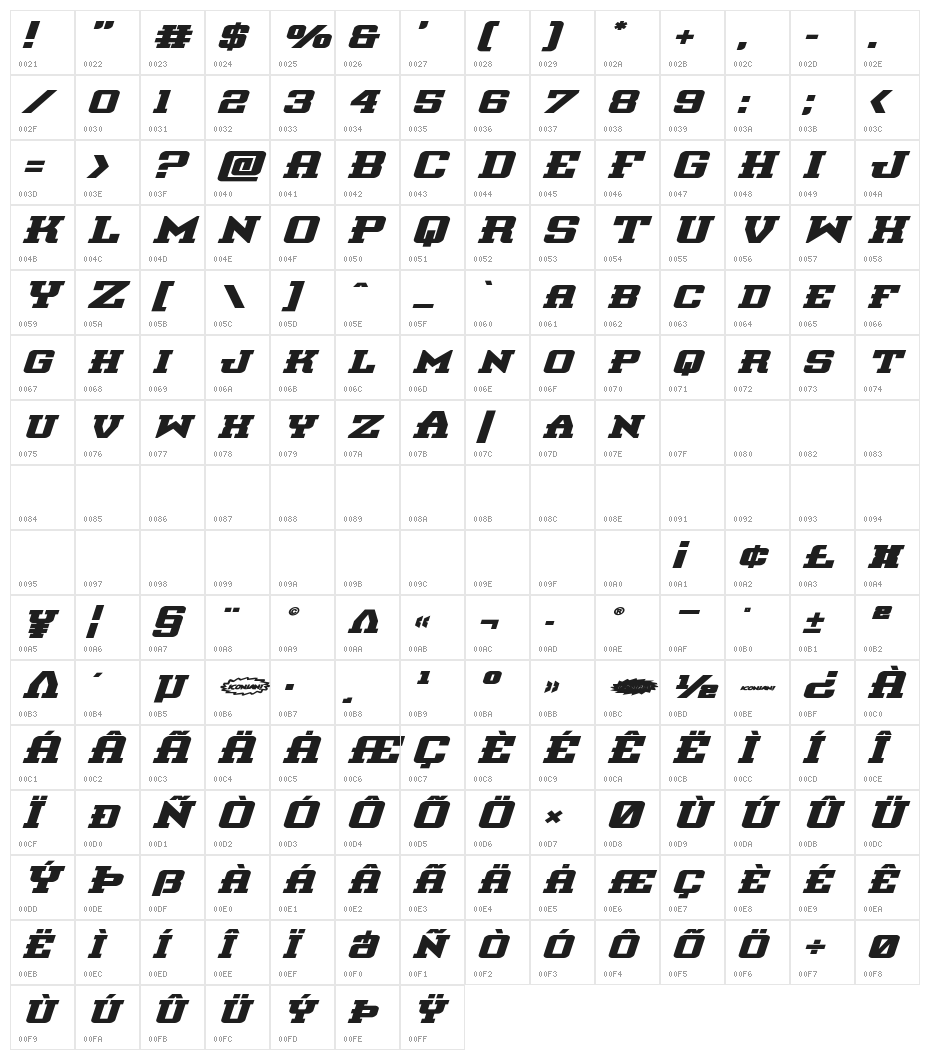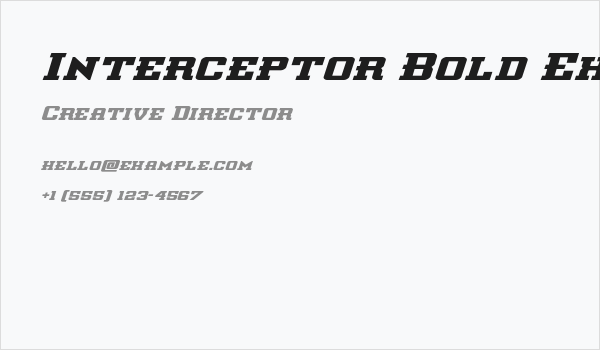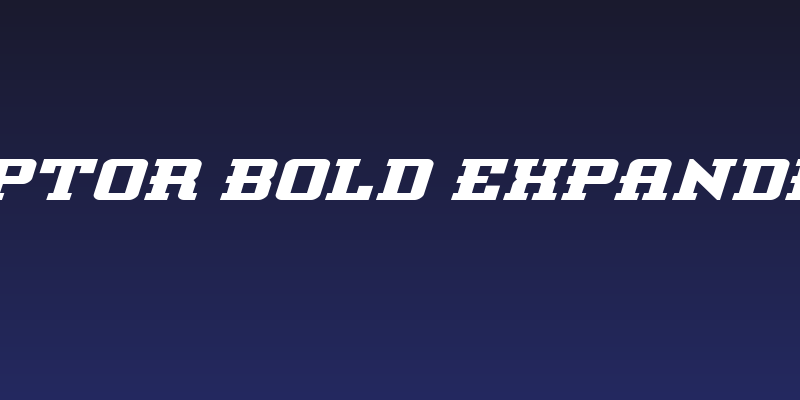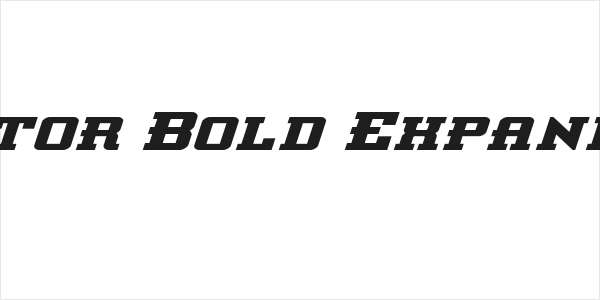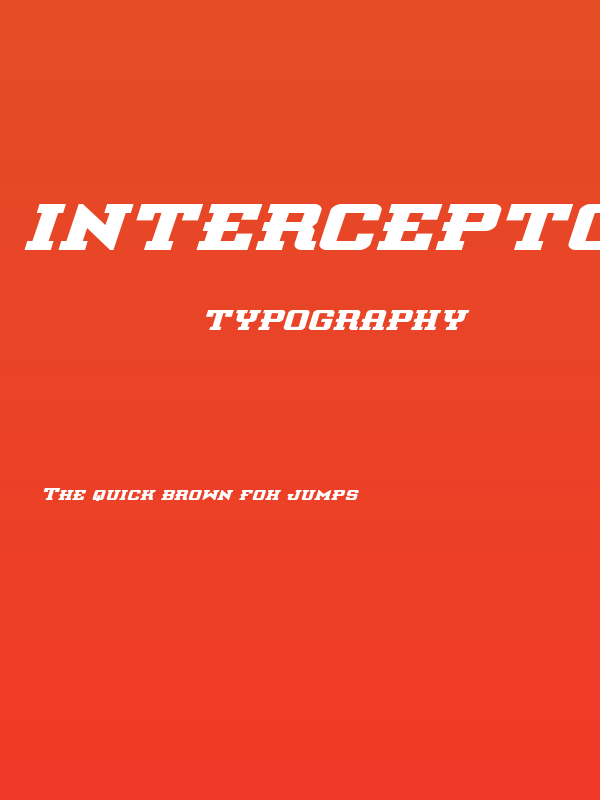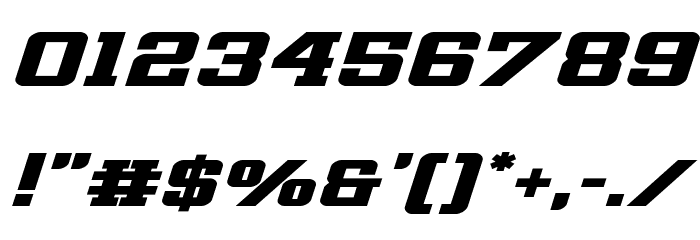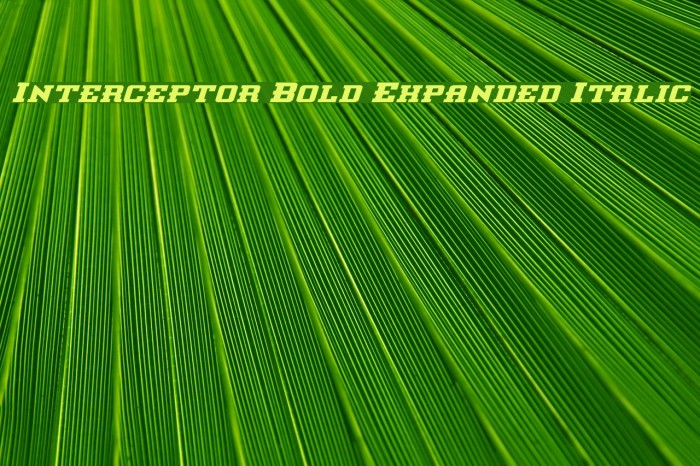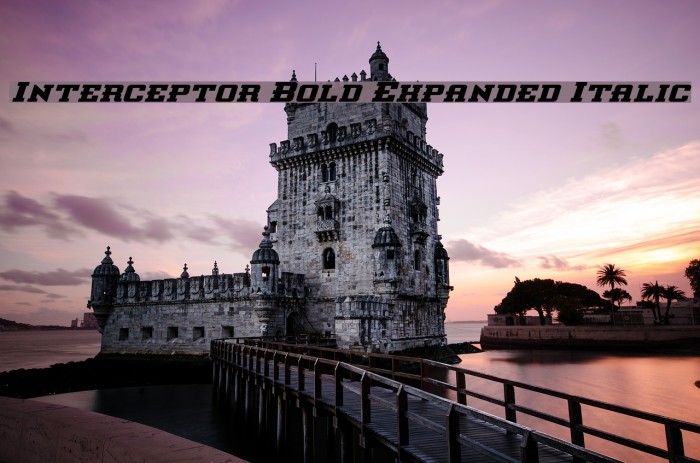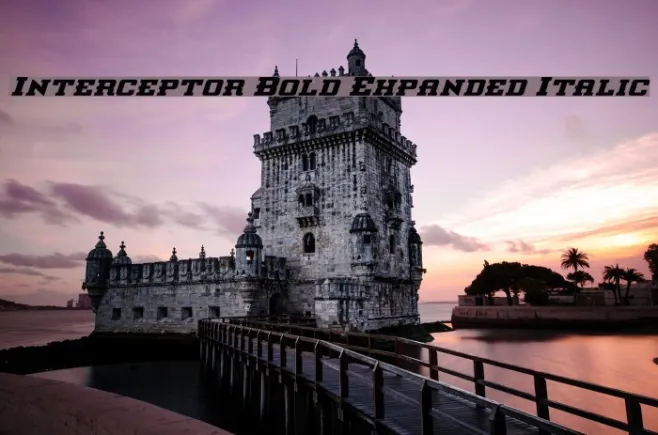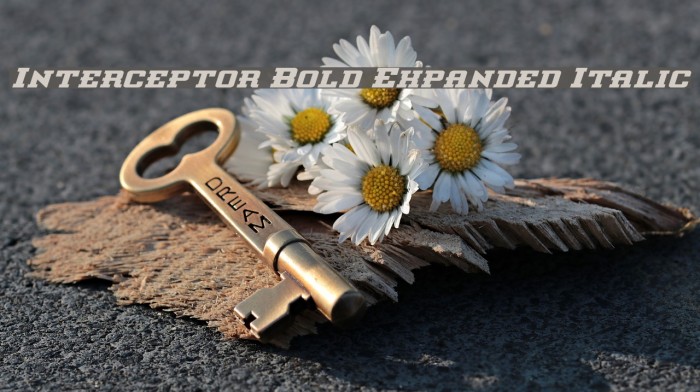
Interceptor Bold Expanded Italic Font
Interceptor Bold Expanded Italic Description
This font features a bold and dynamic style with an expanded width and italic slant, creating a sense of movement and energy. The characters are robust and impactful, making them ideal for attention-grabbing designs. The uppercase and lowercase letters maintain a consistent weight, ensuring readability while adding a touch of flair. The numbers and special characters follow the same bold and italicized design, providing a cohesive look across all elements. The font's expanded nature allows for a strong presence, making it suitable for headlines and logos.
| Proposed Projects | Ideal for sports branding, dynamic posters, action-themed designs, and impactful headlines. |